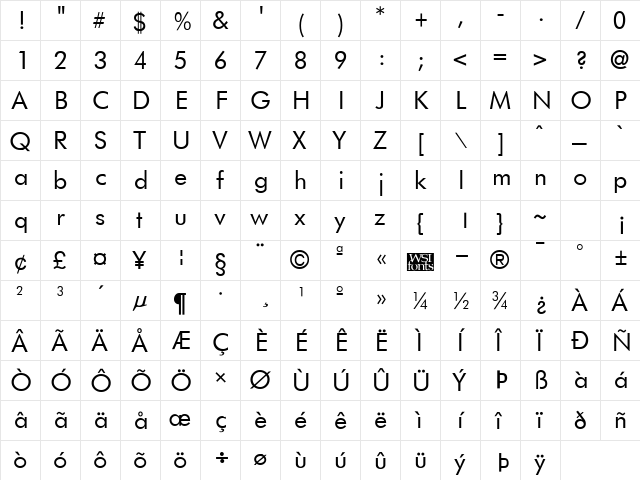
Future Face Regular
Design Context for Future Face Typeface
Future Face has a distinctly futuristic character, with geometric precision and clean angles that feel at home in technology, gaming, and sci-fi contexts.
Pro Tip: Try Future Face with generous letter-spacing in UI labels and navigation — the geometric forms benefit from room to breathe.